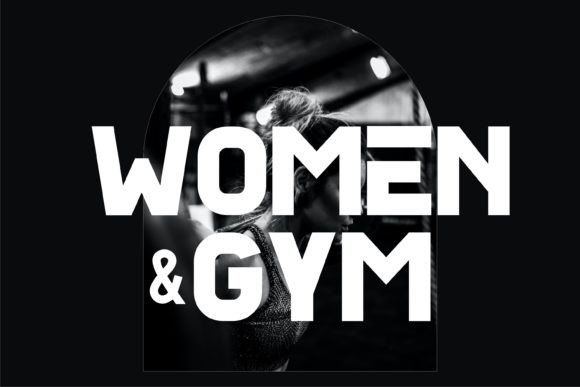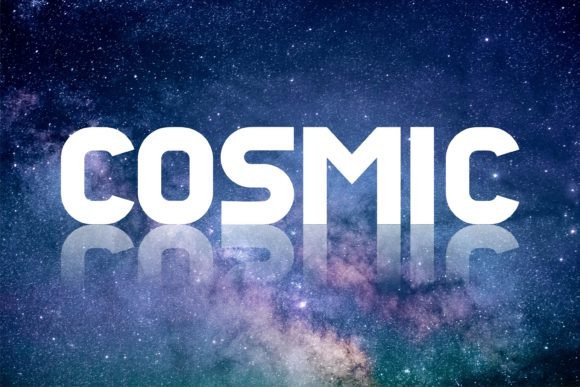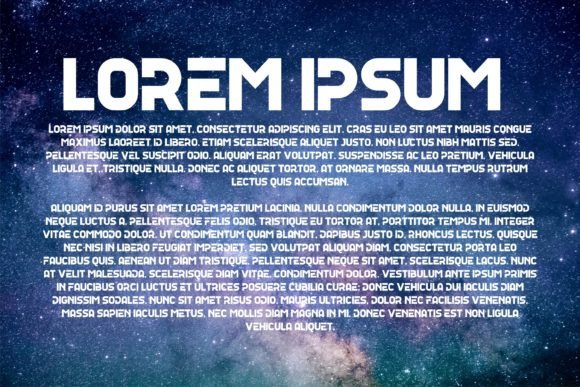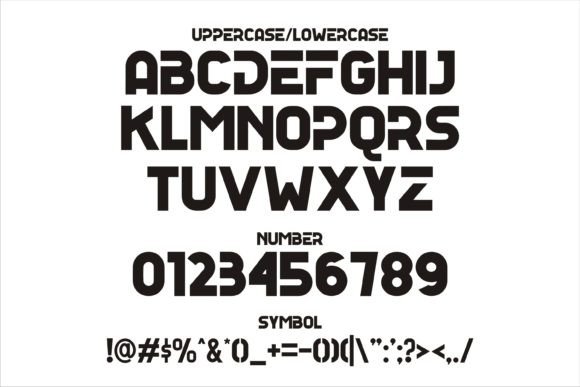
Introduction to New Kidz Font
Do you remember that moment when you finally found the perfect font to elevate your design project? For many designers, it’s a feeling of pure excitement and satisfaction. That’s exactly what we’re here to talk about – the New Kidz Font, a game-changing addition to any designer’s toolkit. With its futuristic, modern, and manly theme, this font is tailor-made for sports, automotive, and male-themed logo designs.
What sets the New Kidz Font apart is its unique blend of youthful energy and professional polish. Whether you’re working on a high-quality logo, brochure, or social media graphic, this font is sure to bring a touch of sophistication and creativity to your project. And the best part? It’s available for free download, complete with a transparent background, making it a valuable design resource for any creative project.
Key Features of New Kidz Font
- High-quality, vector-based design for scalable and crisp output
- Design resource ideal for creative projects, including children’s books, educational materials, and more
- Includes a range of playful and colorful characters, perfect for adding a touch of whimsy to your design project
- Resolution-independent design ensures sharp output at various sizes and resolutions
Honest Review: New Kidz Font
I recently stumbled upon the New Kidz Font, and I must say it’s a unique addition to my design resource library. As a designer, I’m always on the lookout for high-quality fonts to elevate my creative projects.
One of the standout features of this font is its transparent background, which makes it incredibly versatile for use in various design applications. The font itself has a playful, childlike feel to it, perfect for kids’ projects or any design that needs a touch of whimsy.
- Transparent background makes it easy to use in various design applications
- Unique, playful feel that’s perfect for kids’ projects or designs with a whimsical touch
- Limited character set, which may not be ideal for longer texts
- May not be suitable for formal or professional designs
Overall, I’m impressed with the New Kidz Font, and I’d definitely recommend it as a design resource for creative projects. While it has its limitations, it’s a great addition to any designer’s library.
The New Kidz Font is a high-quality, free download design resource perfect for any creative project. Its unique and playful style makes it an excellent addition to any design.
Tips for Getting the Most Out of New Kidz Font
For optimal results, use the New Kidz Font in combination with other high-quality design resources. Experiment with different font sizes, colors, and styles to create a unique and engaging design.
The New Kidz Font is perfect for a variety of creative projects, including:
- Children’s educational materials.
- Party invitations and decorations.
- Web design and development projects.